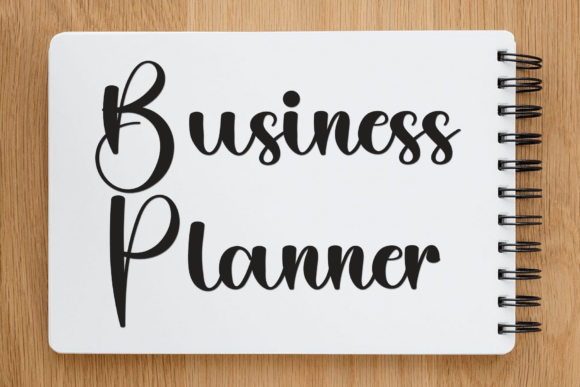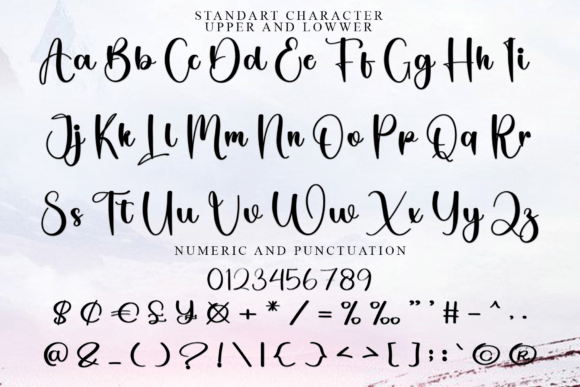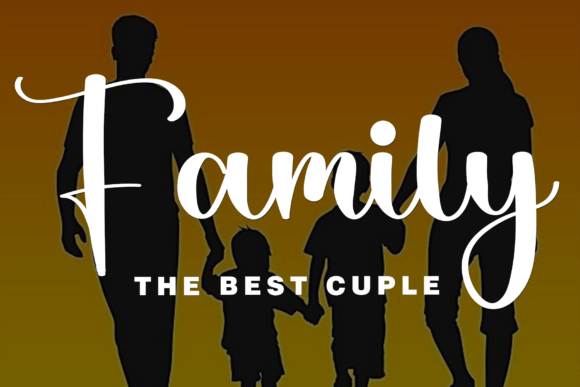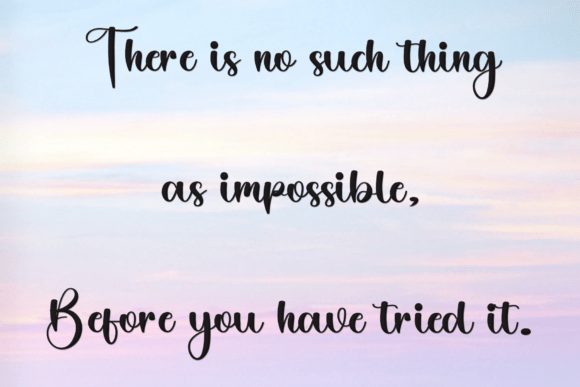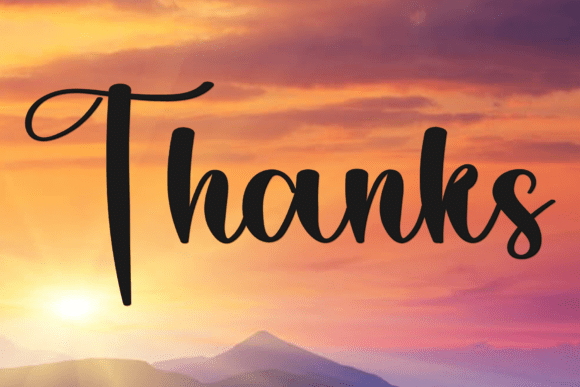
Discover the Charm of Chicago Downton Font: Elevate Your Designs with its Unique Touch
In the world of typography, fonts play a crucial role in making or breaking the visual appeal of a design project. Among the numerous fonts available, Chicago Downton stands out for its distinctive and eye-catching style. This beautiful font, designed with a soft and unique touch, is perfect for designers and crafters looking to add a special character to their creative works.
The Distinctive Features of Chicago Downton Font
Chicago Downton font boasts distinctive strokes that give it a special character, making it both meaningful and versatile for future use. Its unique design ensures that it stands out from more traditional fonts, offering a fresh and modern aesthetic that can elevate any design project. Whether you’re working on a logo, a website, or a craft project, Chicago Downton’s unique touch is sure to make your work more appealing.
Versatility and Compatibility
One of the key advantages of Chicago Downton font is its versatility. It comes with a variety of characters, making it suitable for a wide range of design projects, crafts, and other creative works. Moreover, this font is compatible with various applications, including Windows and open-source platforms. This compatibility ensures that you can easily integrate Chicago Downton into your workflow, regardless of the software or operating system you’re using.
Ideal for Design Projects and Crafts
Chicago Downton font is particularly well-suited for design projects and crafts that require a natural and artistic touch. Its soft and unique style makes it perfect for creating visually appealing products, such as:
- Websites and digital content
- Stationery and greeting cards
- Craft projects, such as handmade cards and scrapbooking
Enhance Your Designs with Chicago Downton
By incorporating Chicago Downton font into your designs, you can add a touch of elegance and sophistication. Its natural style makes it easy to pair with other fonts and design elements, allowing you to create cohesive and visually appealing designs. Whether you’re a professional designer or a crafter, Chicago Downton font can help you to:
- Create unique and memorable brand identities
- Develop engaging and interactive digital content
- Produce high-quality print materials
- Craft beautiful and eye-catching handmade products
Why Choose Chicago Downton Font?
There are several reasons why designers and crafters should consider choosing Chicago Downton font for their projects:
- Unique style: Chicago Downton’s distinctive strokes and soft touch make it stand out from other fonts.
- Versatility: Its compatibility with various applications and range of characters make it suitable for a wide range of projects.
- Ease of use: Chicago Downton font is easy to integrate into your workflow, regardless of your software or operating system.
- High-quality designs: By using Chicago Downton, you can create visually appealing and professional-looking designs.
Chicago Downton font is a beautiful and eye-catching addition to any design project or craft. Its unique touch, versatility, and compatibility make it an ideal choice for designers and crafters looking to elevate their creative works. With Chicago Downton, you can create stunning designs that appeal to a wide range of audiences across different artistic and creative fields. So why not give Chicago Downton font a try and discover the charm it can bring to your designs?